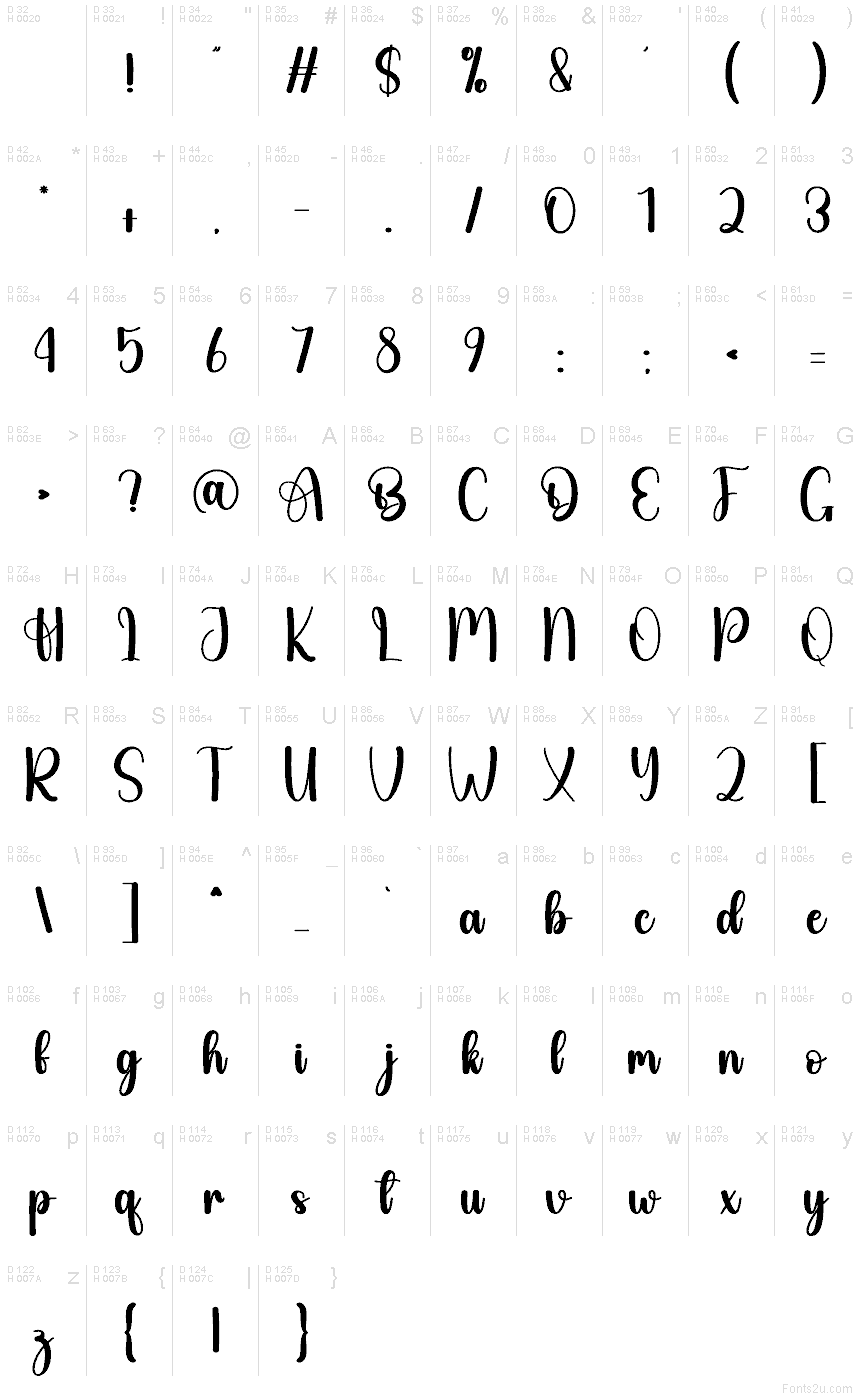
Winter Wishes
Winter Wishes font by Scratchones combines elegance with a touch of whimsy in this modern script typeface. Its flowing, expressive style makes for an artistic design presence that captures attention effortlessly. As each character gracefully connects with the next, Winter Wishes achieves its sophisticated style and wonderful aesthetic.
Its design hallmarks make it perfect for birthday cards, apparel designs, wedding invitations, social media posts, photography overlays, stationery projects as well as other creative efforts where individuality is important. Whether used for branding or body copy purposes this free handwriting font knows no limits!